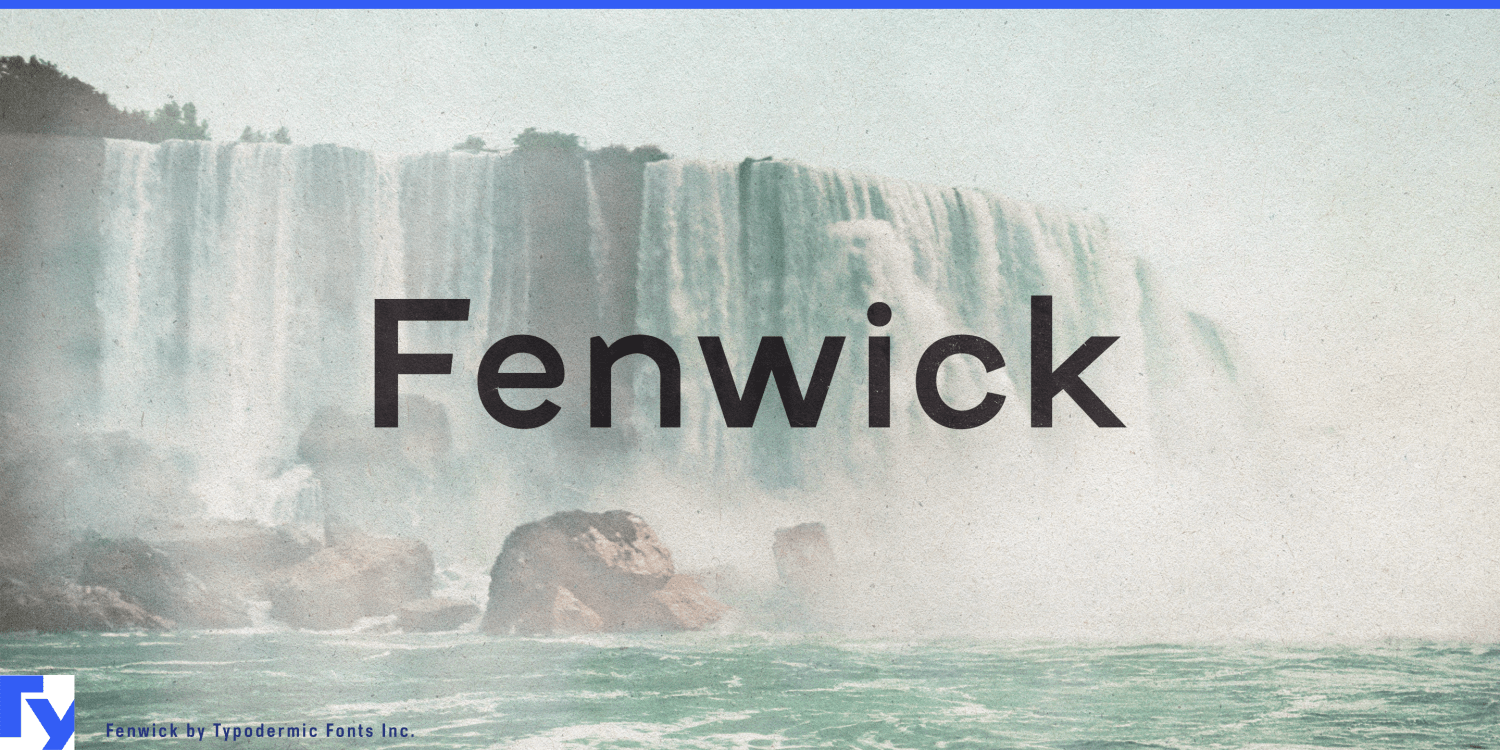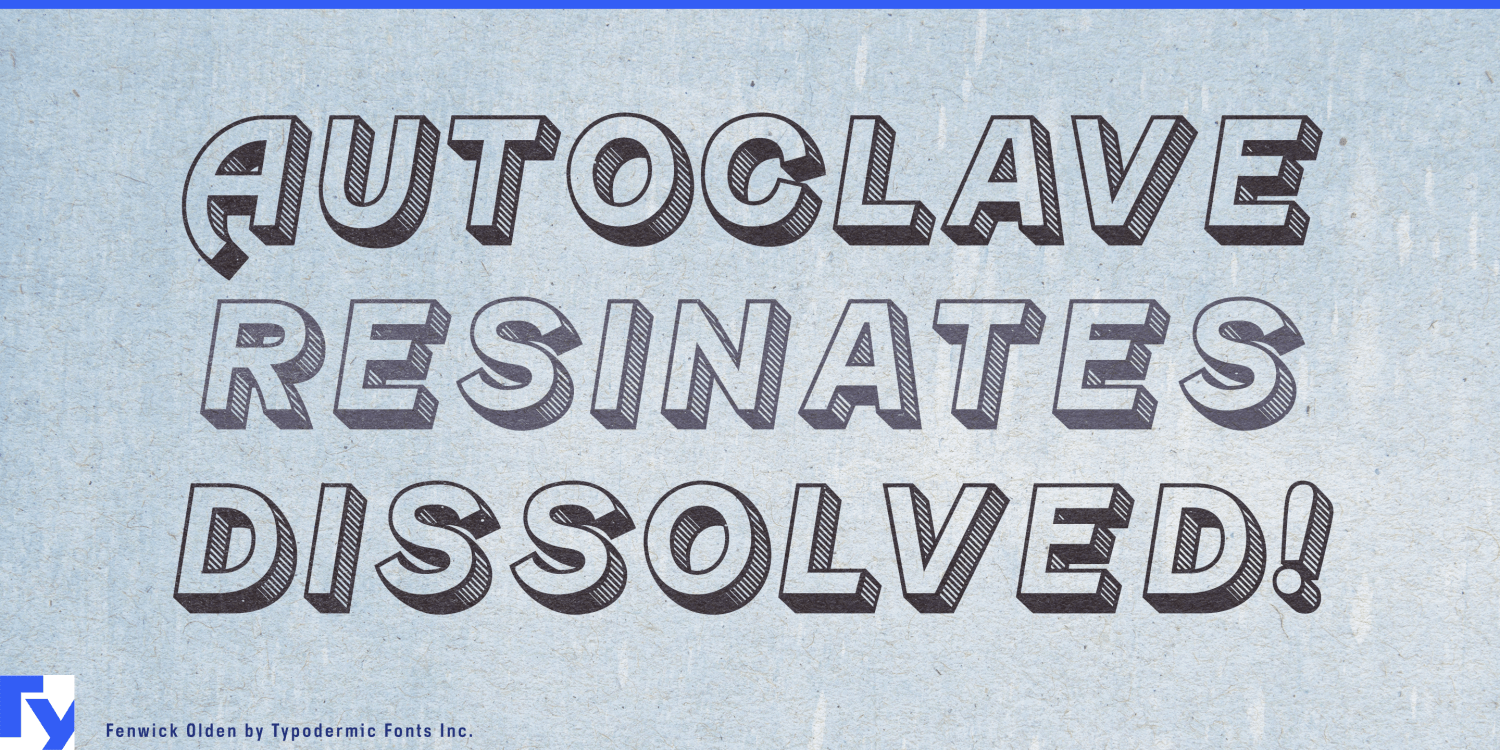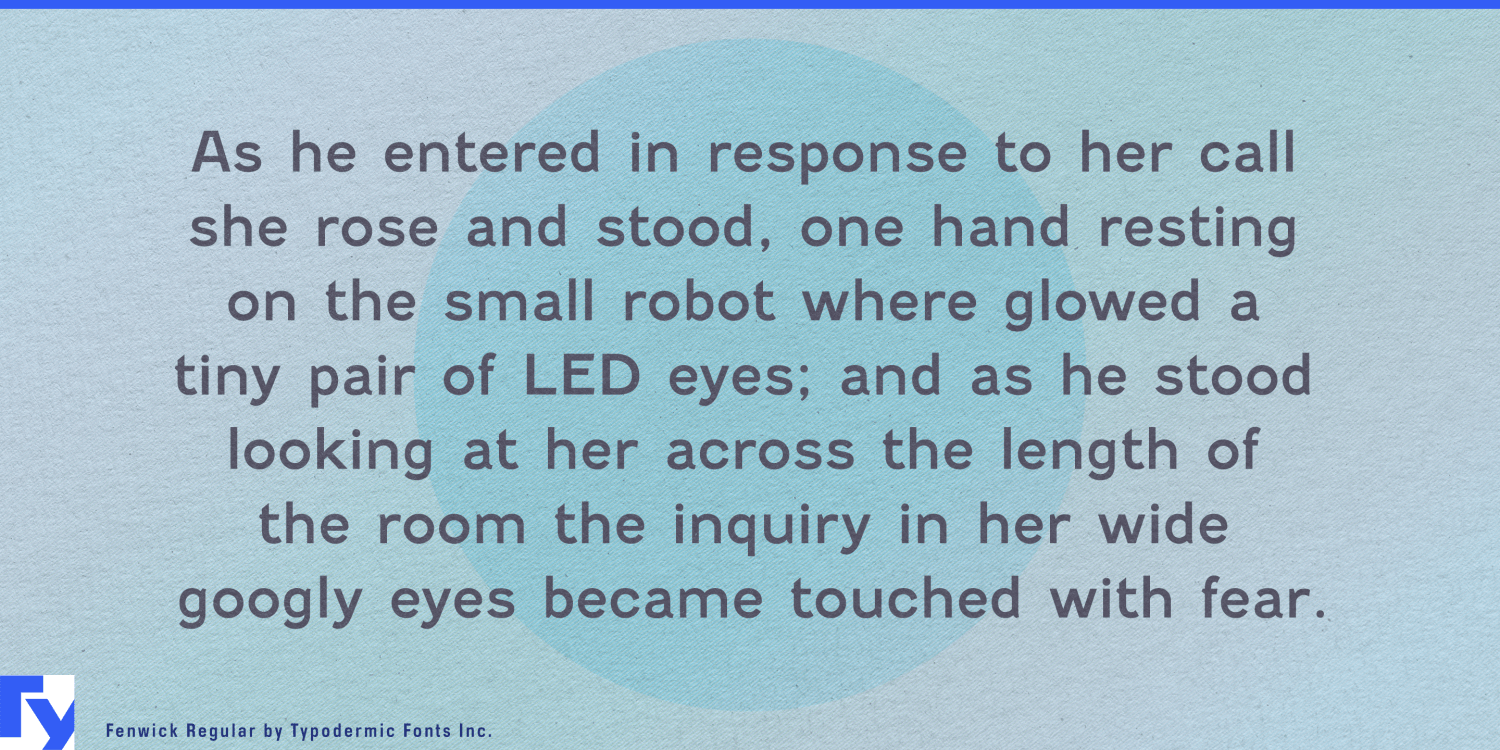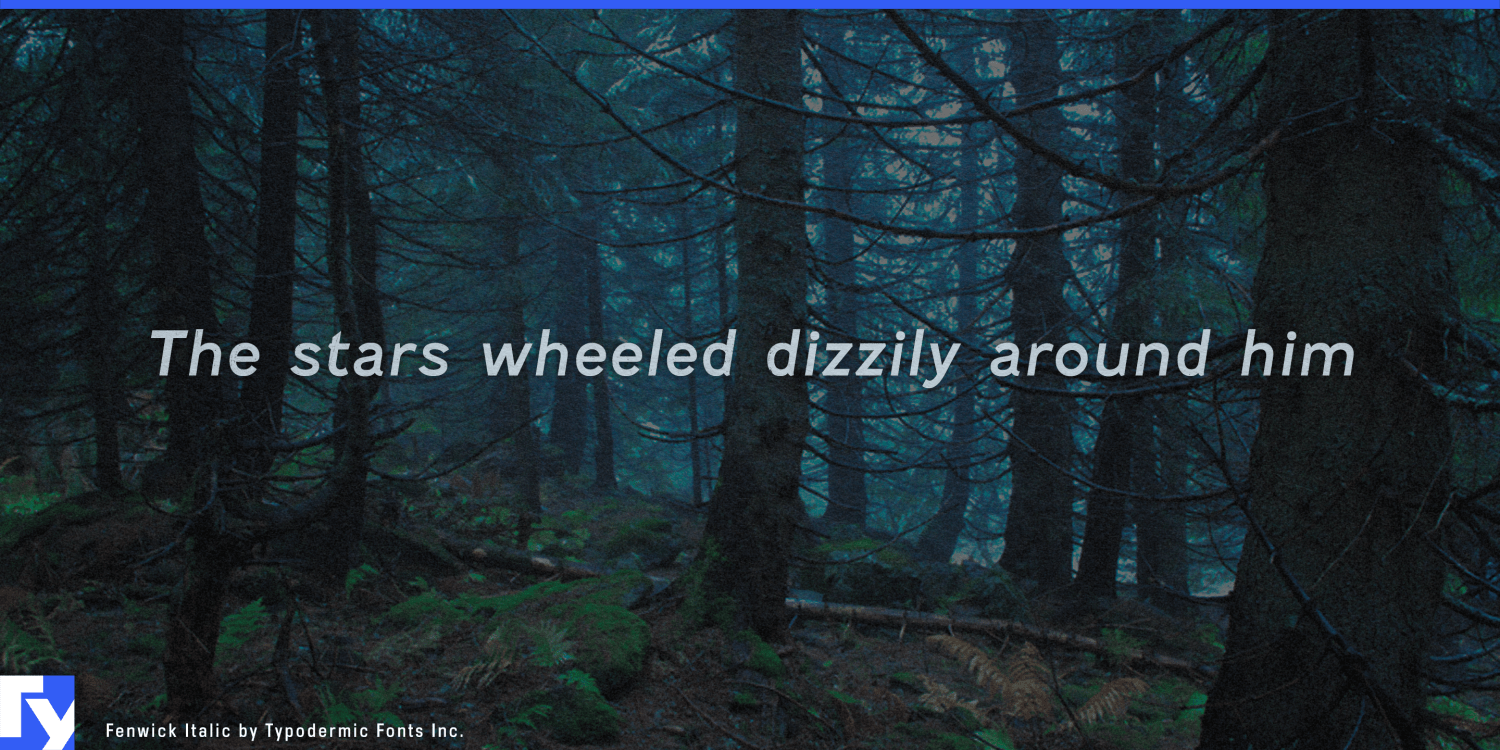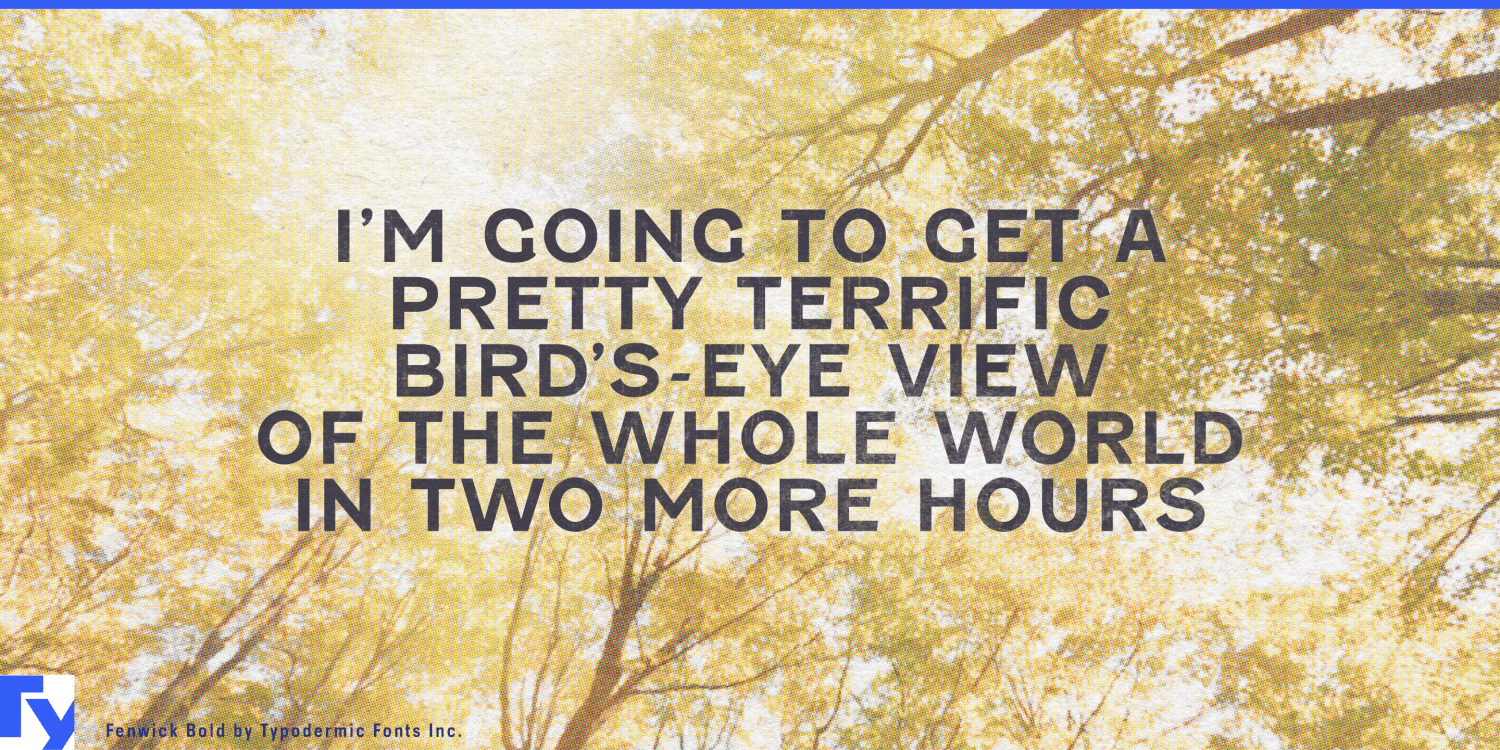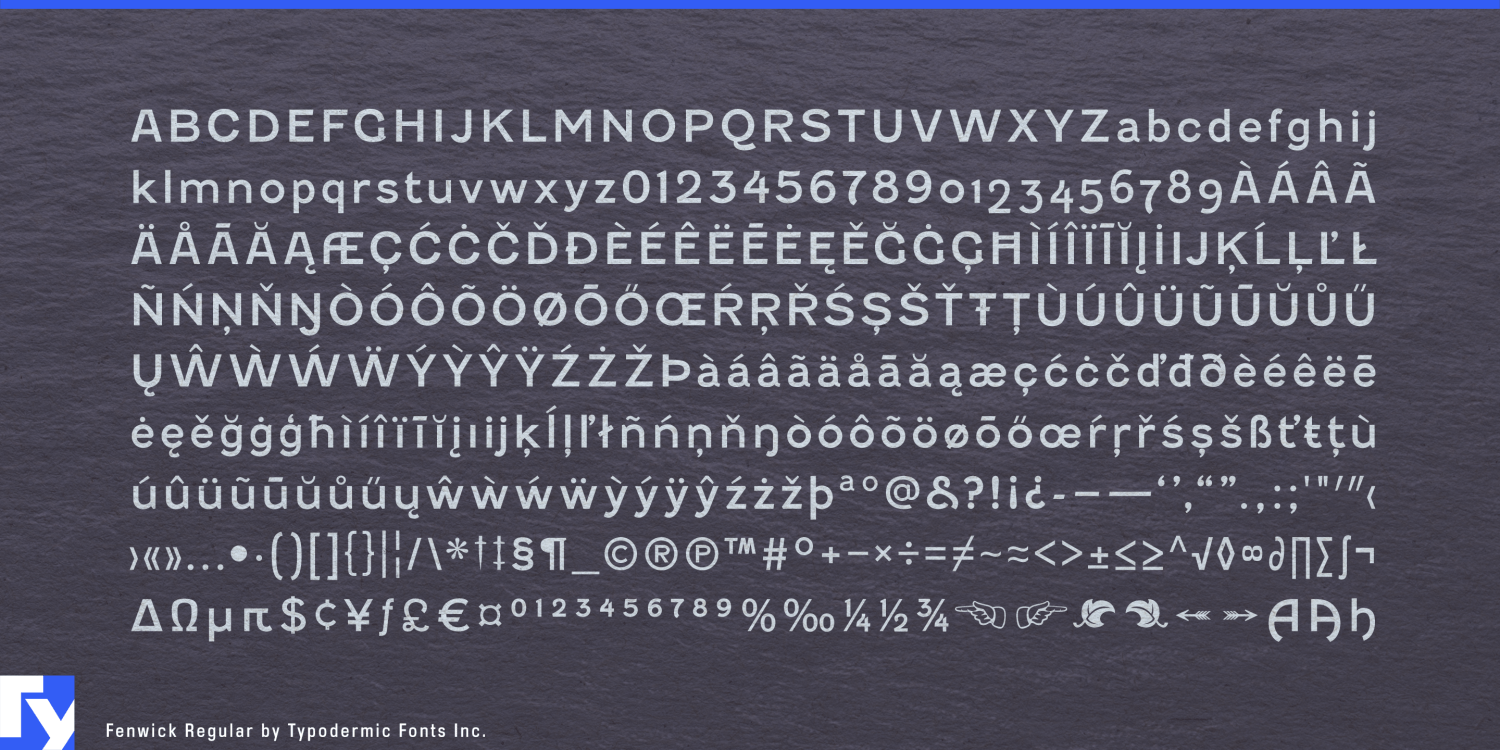
Fenwick
Font Family by Typodermic
Step back in time with Fenwick, a typeface that breathes new life into the rich typographic traditions of late 19th-century Ontario. This is a bridge between eras, seamlessly blending the robust character of gothic sans-serifs with the refined grace of vintage serif display fonts and the precision of elegant clock numerals.
At first glance, Fenwick might evoke memories of time-worn signage on historic Ontario buildings. But look closer, and you’ll discover a typeface that defies easy categorization. Its subtle nods to serif display fonts and clock digits create a unique personality that’s both familiar and fresh, capturing the spirit of innovation that defined Ontario’s industrial heyday. Fenwick doesn’t just mimic the past—it reimagines it for modern design needs. With seven distinct styles, including Light, Regular, and Bold (each with matching italics), plus an engraved all-caps style, Fenwick offers a full spectrum of design possibilities. From delicate invitations to bold headlines, from body text to display type, this versatile family adapts to any design challenge with period-appropriate flair.
For designers who appreciate the finer details, Fenwick’s proportional old-style numerals—easily accessible in OpenType-savvy applications—add an extra layer of authenticity to your vintage-inspired creations. It’s these thoughtful touches that transform Fenwick from a mere typeface into a storytelling tool, one that speaks volumes about Ontario’s rich cultural and industrial heritage. But Fenwick’s appeal isn’t limited by borders. Supporting a wide range of Latin-based European languages, this typeface is ready to bring its vintage charm to global audiences. Whether you’re designing for a local Ontario brewery or an international steampunk convention, Fenwick communicates with clarity and character across linguistic boundaries.
Fenwick is more than just a nod to the past—it’s a celebration of enduring design principles reimagined for today’s creative needs. It’s for designers who understand that true innovation often comes from a deep appreciation of history. It’s for brands that want to convey a sense of timeless quality, and for projects that seek to bridge the gap between heritage and contemporary appeal.
So, when your design calls for something with roots and wings, when you need to convey both tradition and forward-thinking, turn to Fenwick. It’s not just about choosing a font—it’s about crafting a visual narrative that resonates across time.